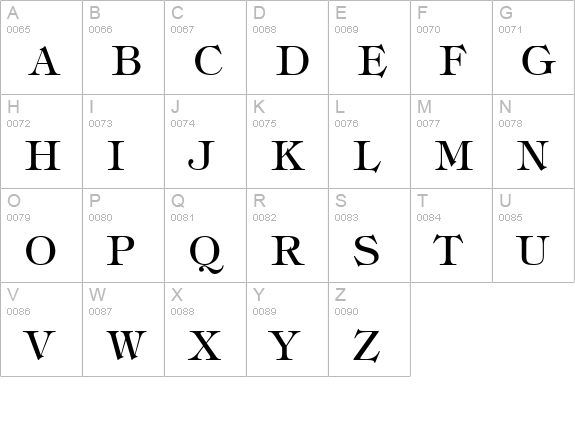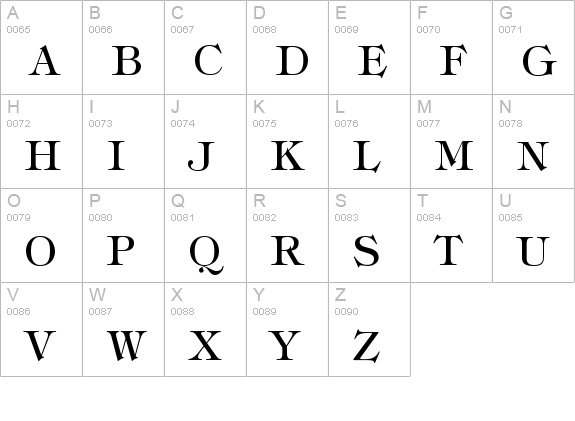
Introducing Timpani, a breathtakingly versatile font that effortlessly blends elegance with a touch of modernity. With its graceful curves and refined letterforms, Timpani captures the essence of sophistication, making it the perfect choice for a wide range of design projects. Whether you're creating a wedding invitation, a logo for a high-end brand, or a stylish editorial layout, Timpani's timeless appeal will elevate your designs to new heights. Its clean lines and balanced proportions ensure readability, while its subtle details add a hint of personality and uniqueness. The best part? Timpani is free! Yes, you read that right. This extraordinary font is freely available to download at FontsMarket.com, allowing you to add a touch of elegance to your projects without breaking the bank. Embrace the beauty of Timpani and let your creativity soar. So, what are you waiting for? Download Timpani today and unlock a world of endless design possibilities. Whether you're a seasoned designer or just starting out, Timpani will be your trusted companion, guiding you towards stunning and impactful creations. Don't miss out on this incredible opportunity to enhance your designs with a font that is both timeless and free.